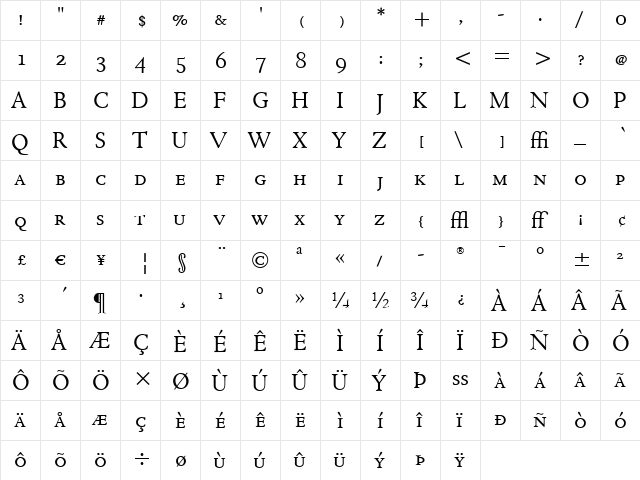
Winchester New ITC Book
| Foundry | International Typeface Corporation |
Design Context for Winchester New ITC Typeface
Winchester New ITC is a composed and adaptable typeface that performs quietly and consistently across a wide range of design contexts.